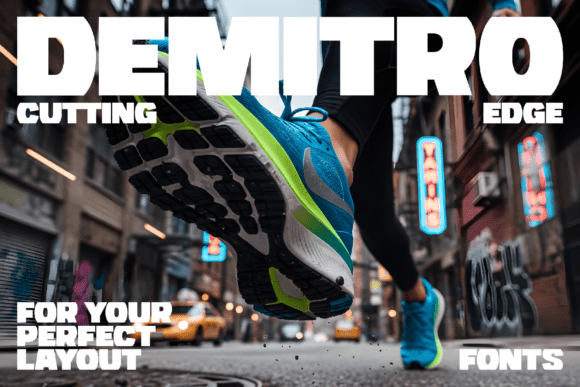
How Demitro Transformed My Brand's Visual Identity
I used to think that a great brand was all about the product. But after launching my small bakery, I realized that first impressions are everything—and that starts with how your brand looks. One day, while designing a new packaging label for my signature chocolate croissant, I stumbled upon Demitro, and it changed everything.
Demitro is a display font that feels both modern and structured. It has this clean, bold look with a subtle shearing effect on the top and bottom of each letter. It’s not just another sans-serif; it’s a precision-engineered typeface designed for those who want their visuals to stand out without being too flashy. The mood it brings is professional yet approachable—perfect for a brand like mine that wants to feel trustworthy but still have a touch of personality.
The moment I applied Demitro to my packaging, the difference was instant. The name of my bakery looked more polished, and the overall design felt cohesive. I started using it on my thank-you cards, website banners, and even my Instagram posts. It gave everything a consistent visual tone that made my brand feel more recognizable.
Where Demitro Shines in Real Business Scenarios
Since discovering Demitro, I’ve found it incredibly useful across different aspects of my business. Here are some specific places where it works well:
- Logo Design: Demitro adds a strong, memorable presence to logos. Its clean lines make it easy to read and visually striking.
- Product Labels: Whether it’s my croissant boxes or my seasonal cookie jars, Demitro makes the titles pop while keeping the information clear.
- Packaging Design: From gift boxes to specialty packaging, the font gives an air of professionalism that customers notice.
- Social Media Graphics: Using Demitro on my Instagram stories and posts helps maintain a consistent brand image across platforms.
- Menus and Flyers: In my café, I redesigned the menu with Demitro, and it made the layout feel more organized and visually appealing.
What I love most is that Demitro isn’t just for headlines. It works well as a supporting typography element too. When paired with a clean sans-serif or an elegant serif font, it adds a nice contrast that keeps the design from feeling flat.
Why Typography Matters for Your Brand
Typography is one of those things you might not think about until you start noticing it everywhere. It affects how people perceive your brand. A well-chosen font can make your business look more trustworthy, professional, and customer-friendly. On the other hand, a poorly chosen font can make your brand feel unorganized or even unprofessional.
With Demitro, I noticed that my customers started remembering my brand more easily. It wasn’t just the taste of the pastries—it was the way everything looked. The consistency across all materials helped build a stronger brand identity.
Readability is also important, especially when it comes to small labels or mobile screens. Demitro is legible enough to be used on tiny tags on my products and still look sharp. That’s something I didn’t expect, but it’s been a huge plus.
Font Pairing and Practical Tips
One thing I learned quickly is that pairing fonts can make or break a design. Demitro works really well with a clean sans-serif font for body text. It also pairs nicely with a script font for accents or decorative elements. I’ve used it alongside a modern sans-serif for my website, and the result was balanced and stylish.
Before using any font on commercial projects, I always check what styles and file formats are included. Demitro has several weights and alternates, which makes it versatile for different uses. Also, confirming that it has proper multilingual support and commercial licensing is essential if you’re using it for client work or digital downloads.
I now use Demitro on everything from my packaging to my online shop graphics. It’s become a staple in my design toolkit because it consistently delivers a polished, professional look that aligns with my brand’s values.
If you're looking to elevate your brand’s visual identity, I highly recommend giving Demitro a try. It’s more than just a font—it’s a tool that helps your business stand out in a crowded market, one letter at a time.